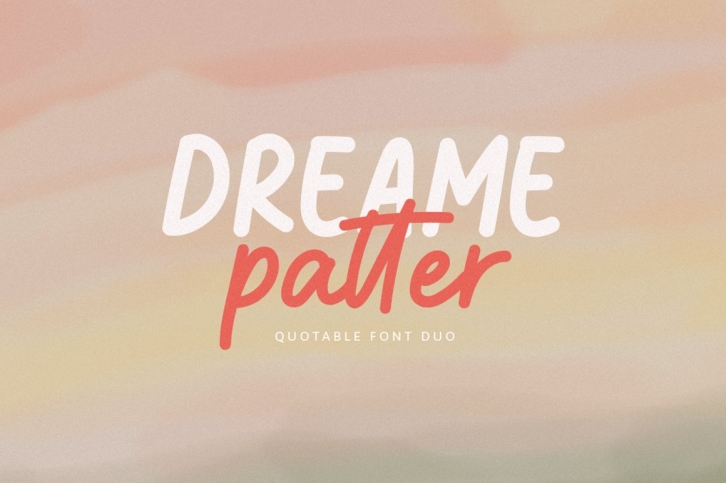
Dreame patter - Quotable Font Duo Download
Dreame patter is a gorgeous font that was realeased on January 15, 2021. The font can be used in many style contexts and design environments. Perfect for invitations, magazines, websites, logos, and more! It was designed by Viswell Studio and the file size is 16.53 MB. Thanks for checking out this font!